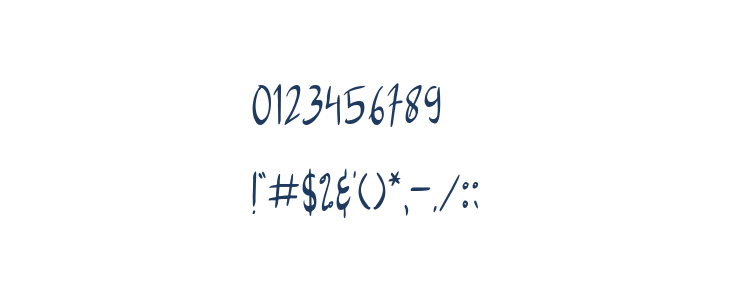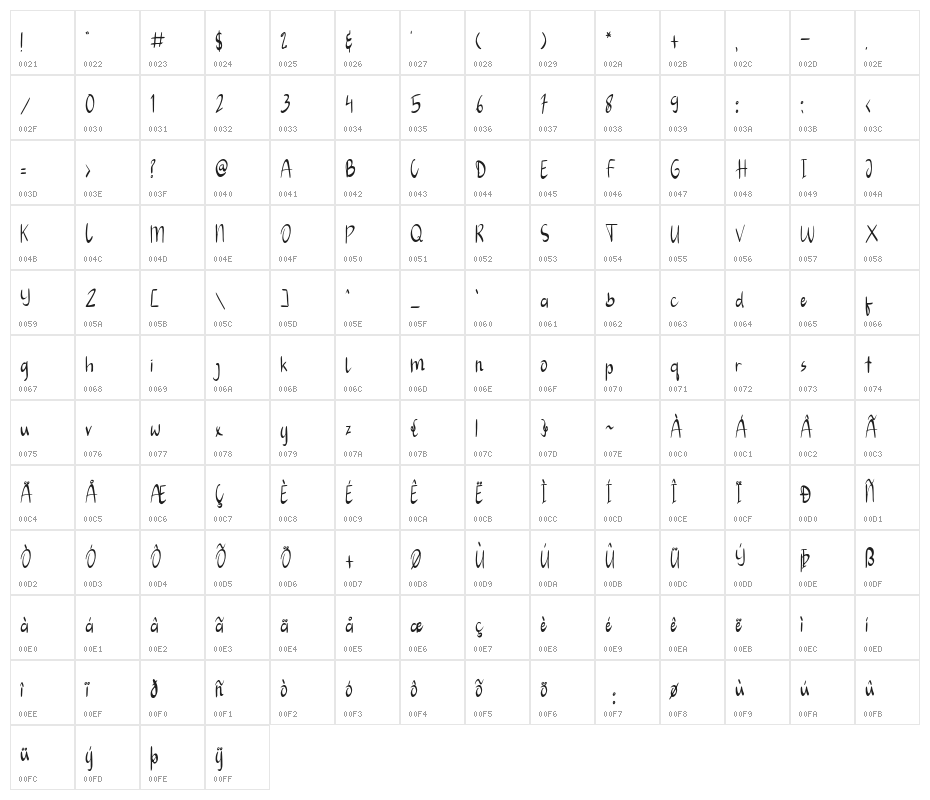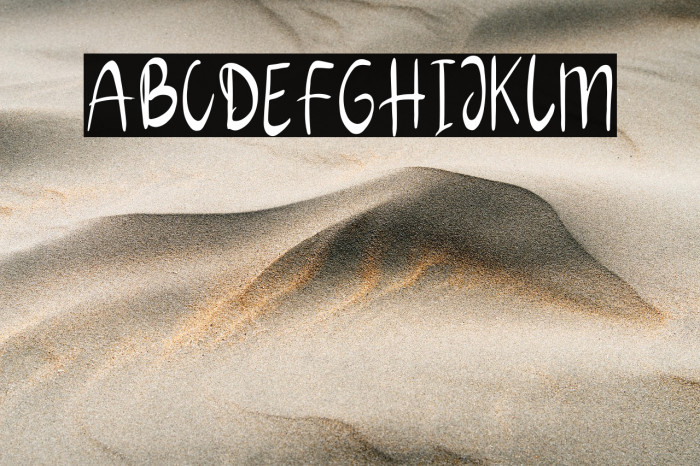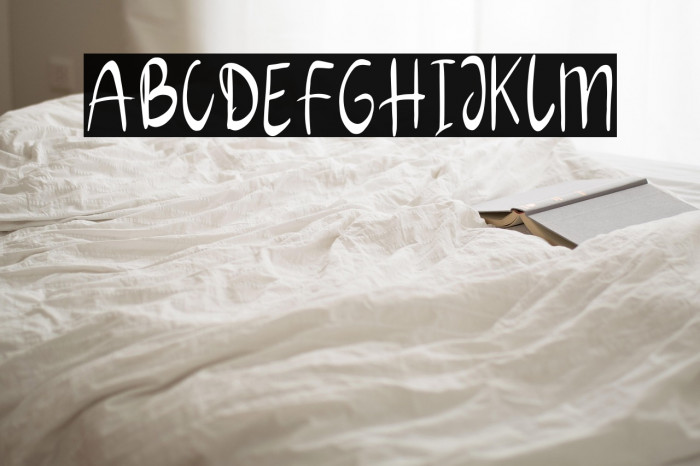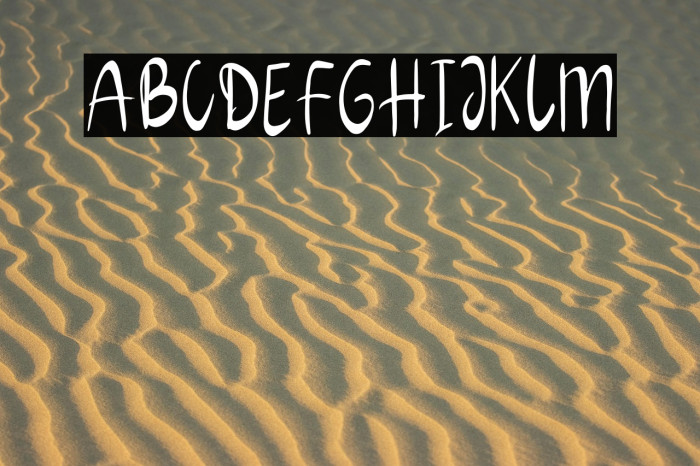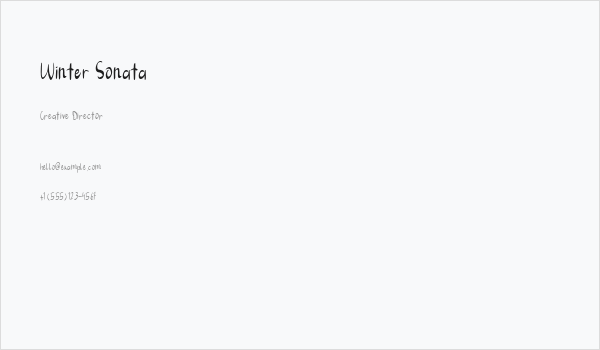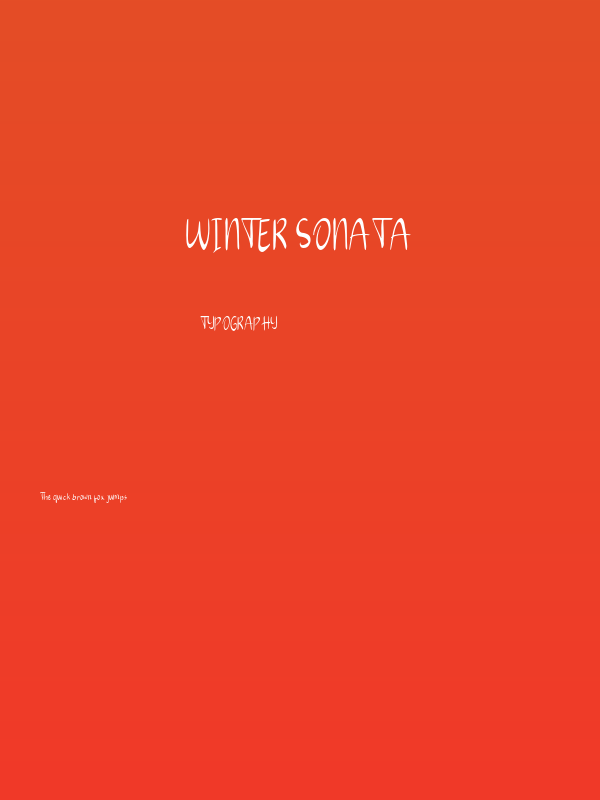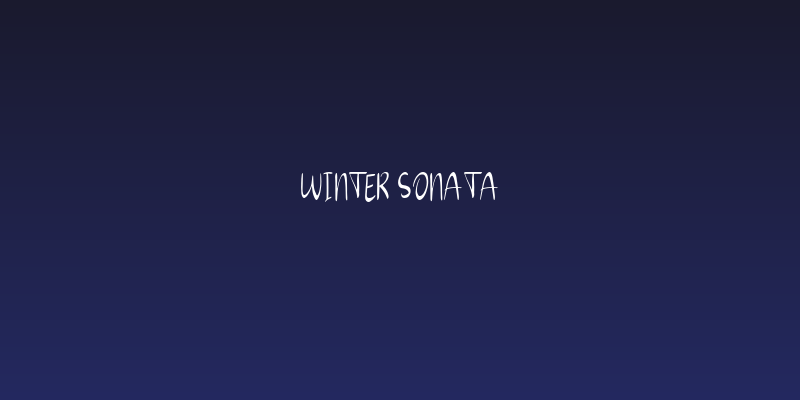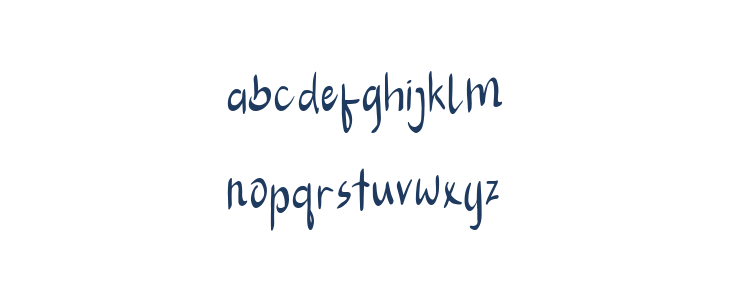
Winter Sonata Font
Winter Sonata Description
This font features a playful and casual handwritten style, characterized by its smooth and flowing strokes. The uppercase letters exhibit a slight slant, adding a dynamic and lively feel, while the lowercase letters maintain a consistent and harmonious appearance. The numerals are clear and legible, complementing the overall aesthetic. Special characters are thoughtfully designed to match the font's informal and friendly vibe. This font's unique personality makes it suitable for projects that require a personal touch, such as invitations, greeting cards, and creative branding.
| Proposed Projects | Ideal for invitations, greeting cards, creative branding, and personal projects. |